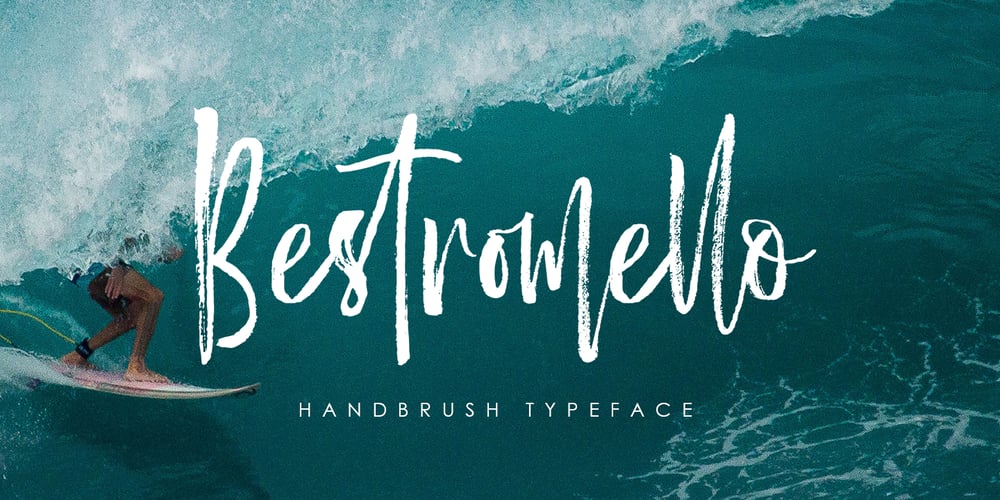
Bestromello Script
Bestromello Script font
Bestromello Script Font Family was designed by Muhammad Fajar and published by Lucky Type. Bestromello Script contains 1 styles and family package options. Bestromello is a new modern brush font with an irregular baseline. It’s a contemporary approach to design, with handmade and natural curves, suitable for use in title design such as clothing, invitations, book titles, stationery designs, quotes, branding, logos, greeting cards, T-shirts, packaging designs, posters, and more. Complete with uppercase and lowercase letters, as well as multi-language support, numbers, punctuation and some ligatures.